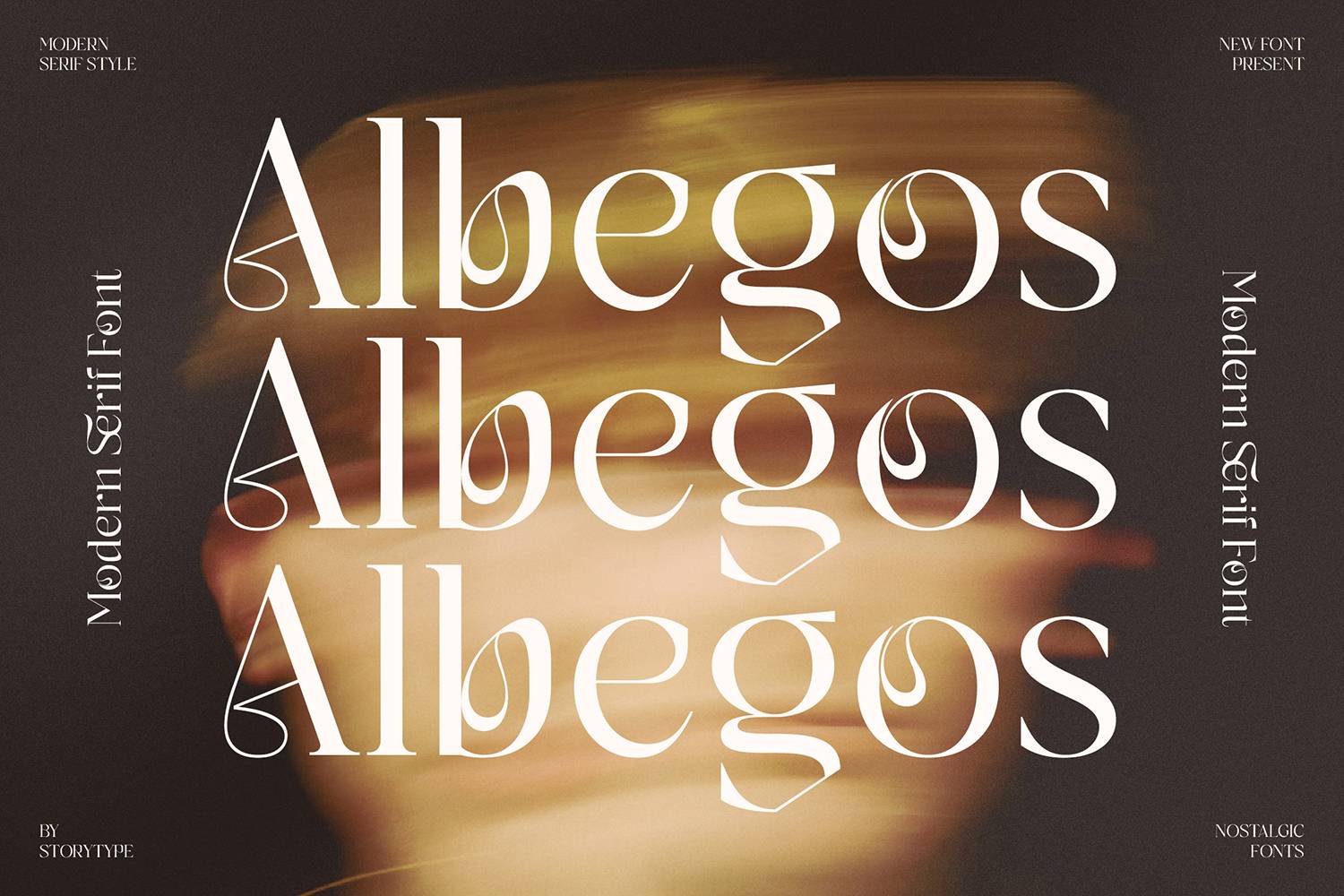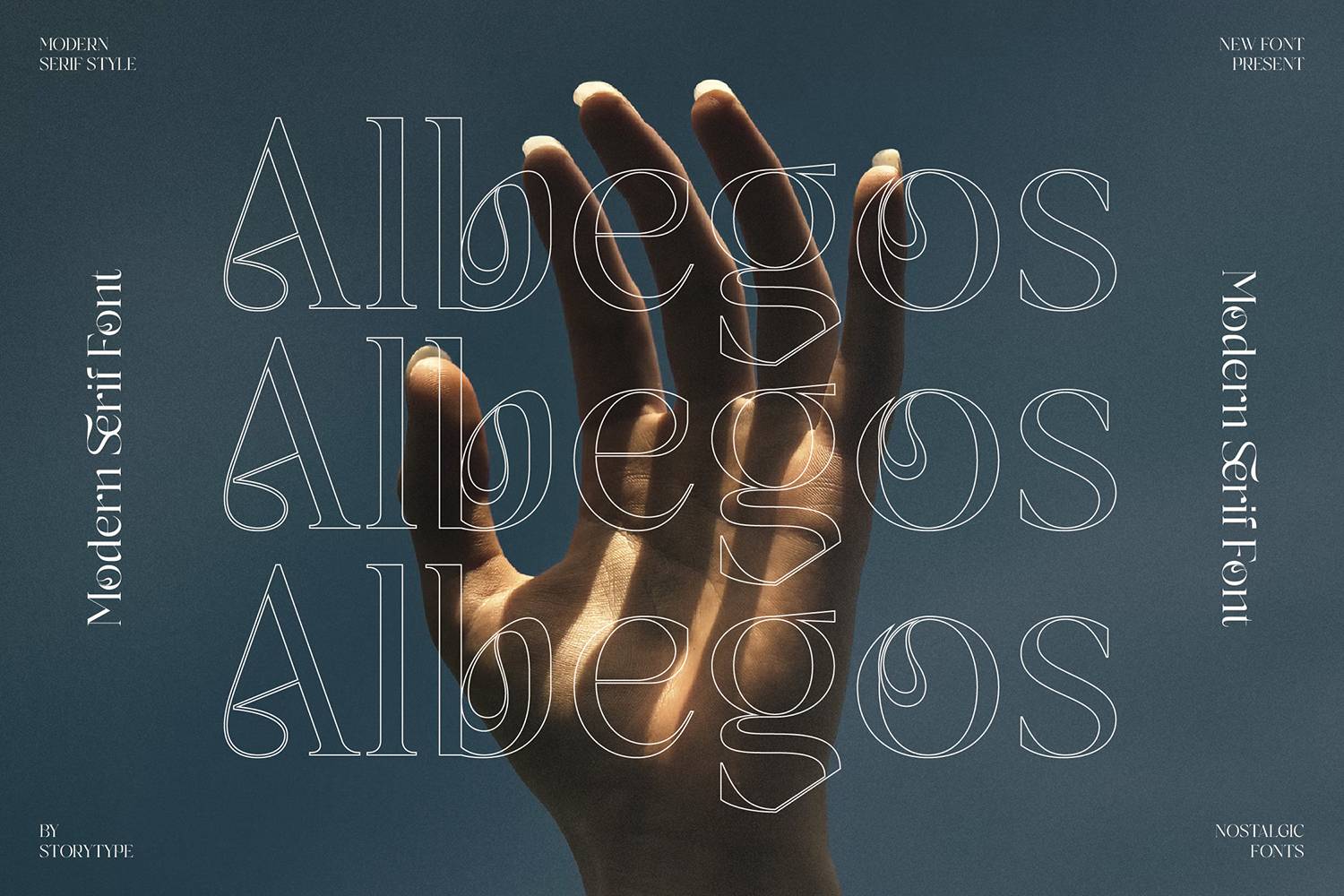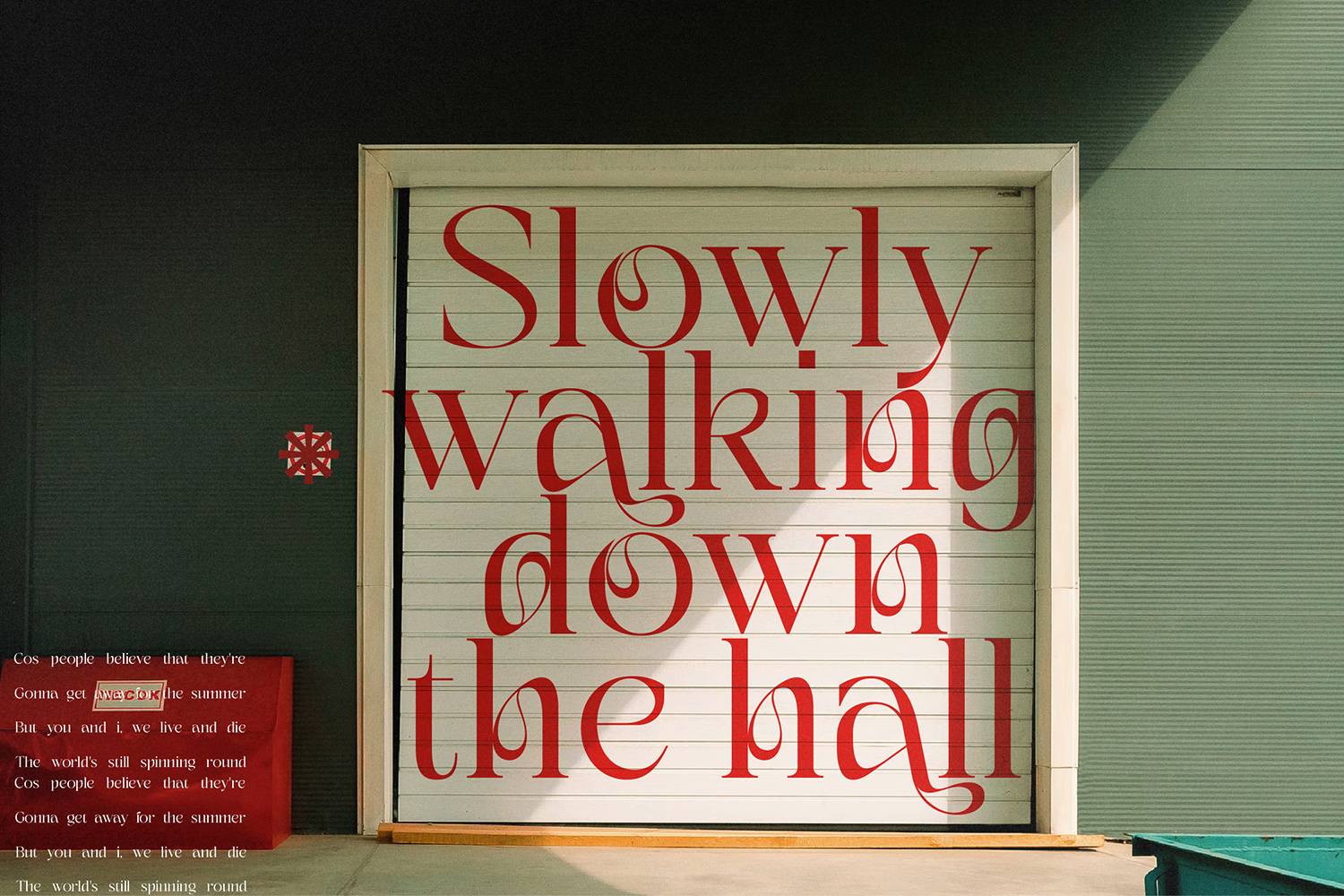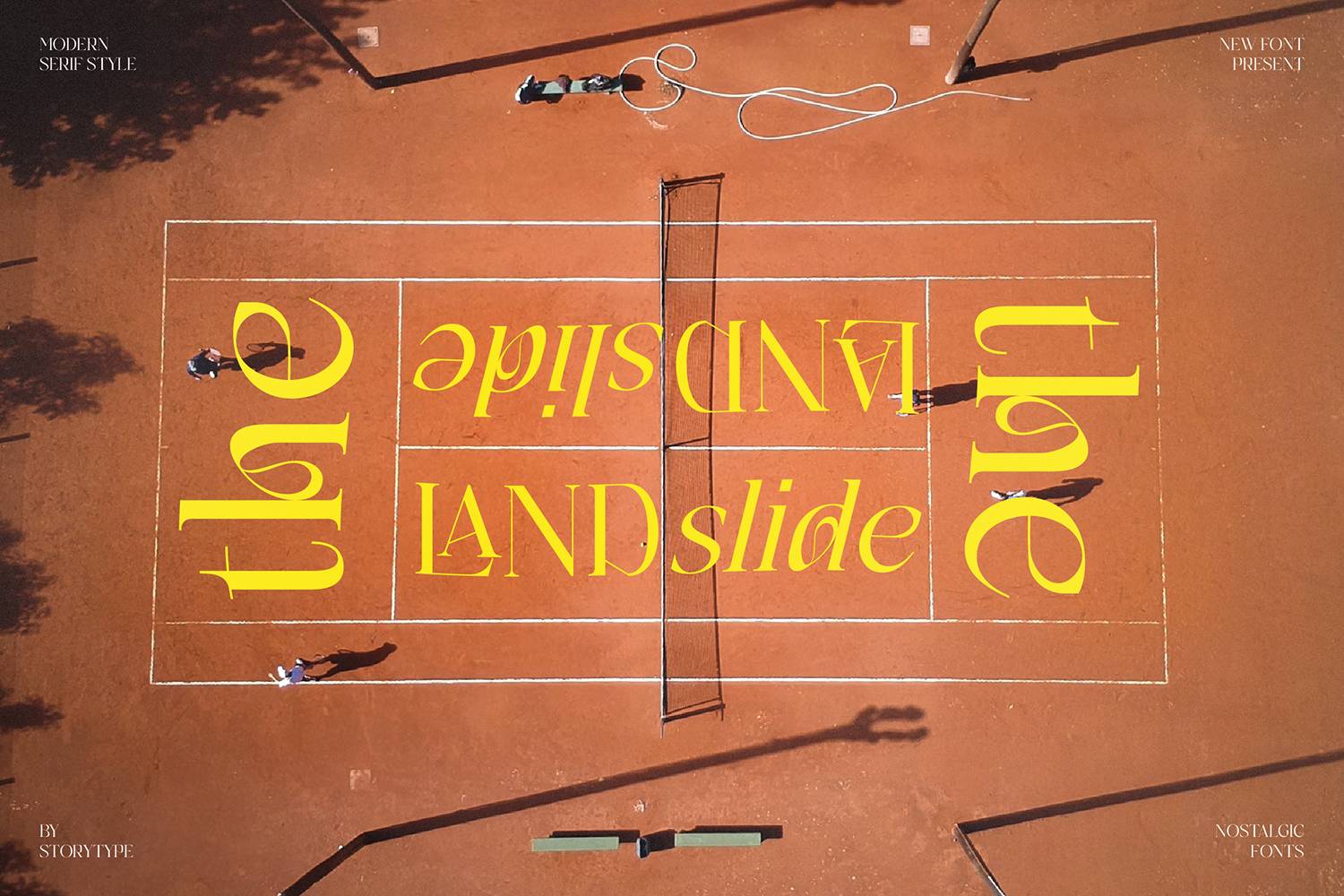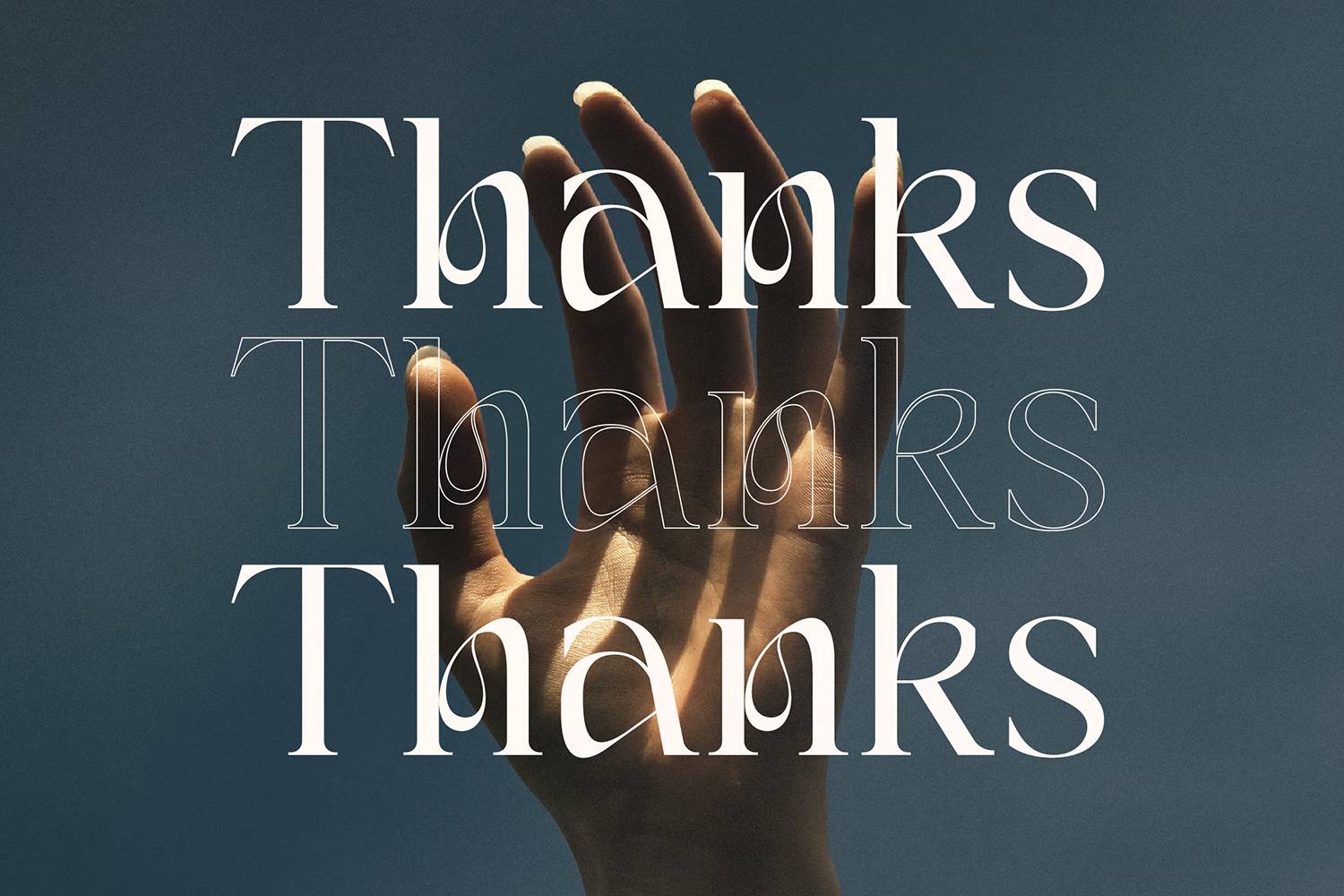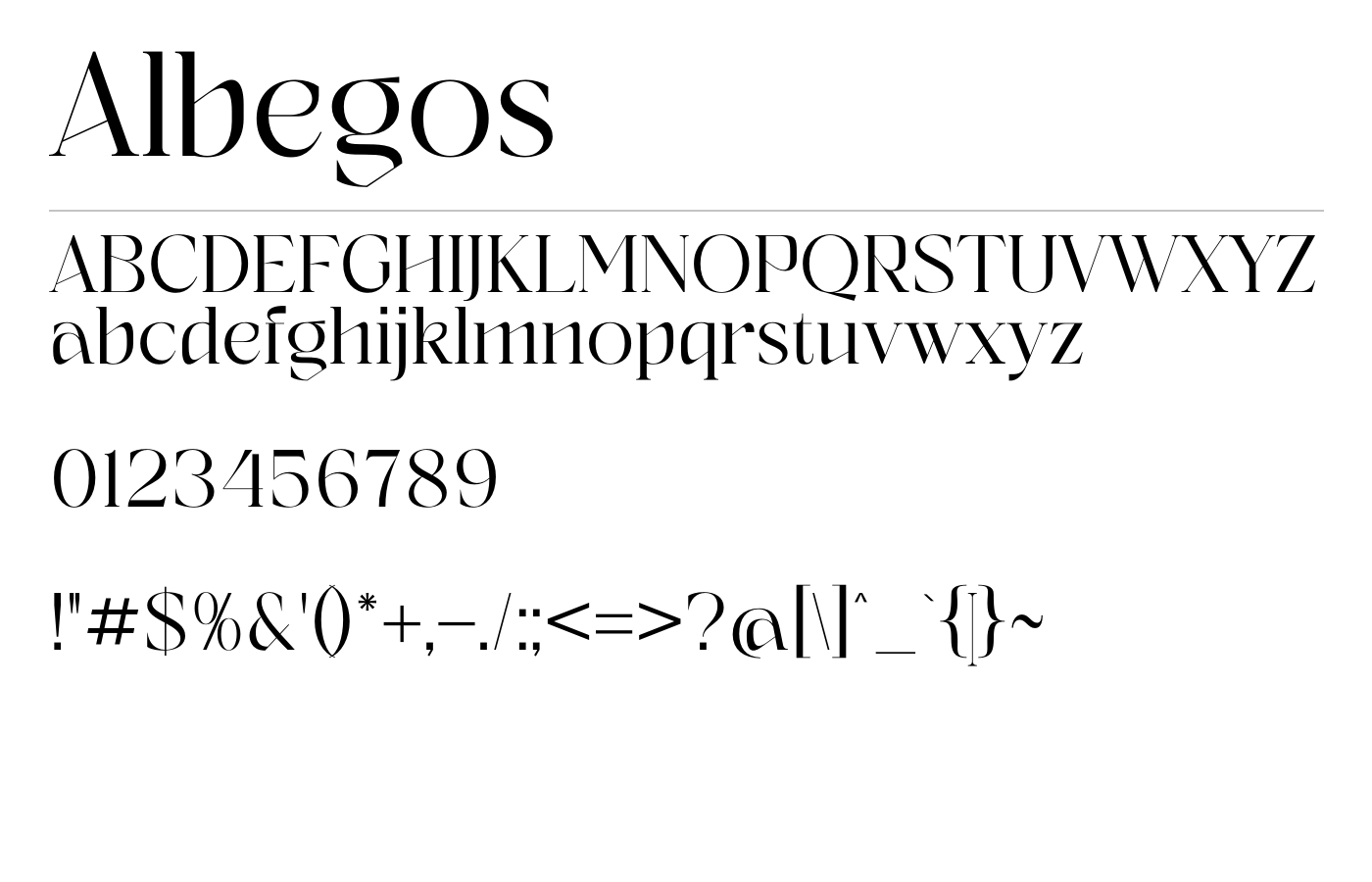
Albegos is an elegant serif font with a modern, high-contrast design featuring thin, sharp strokes and distinct bracketed serifs. Its tall, refined letterforms and stylish details make it ideal for sophisticated branding, editorial headlines, and luxury packaging where a graceful yet contemporary feel is desired. This font combines classic charm with a fresh, artistic edge, perfect for projects seeking a polished and upscale appearance.
Albegos Font
About Albegos Font